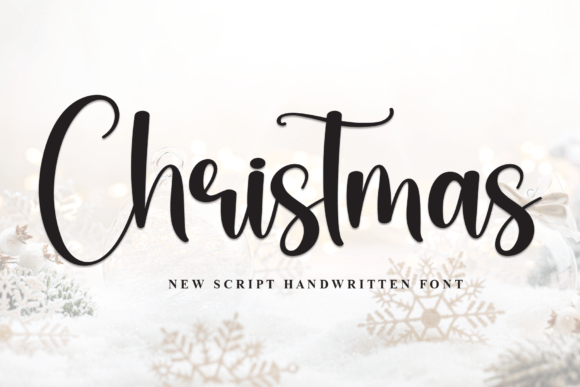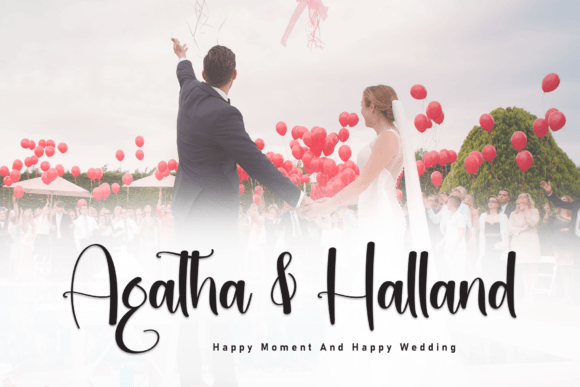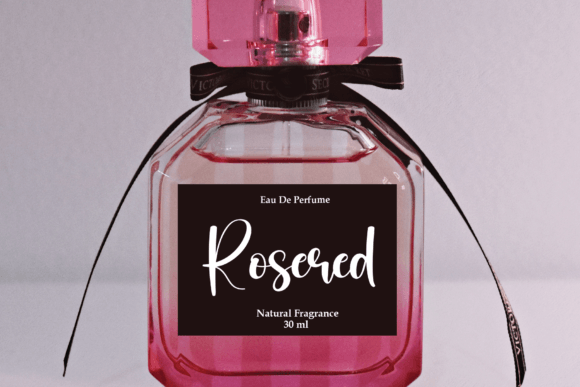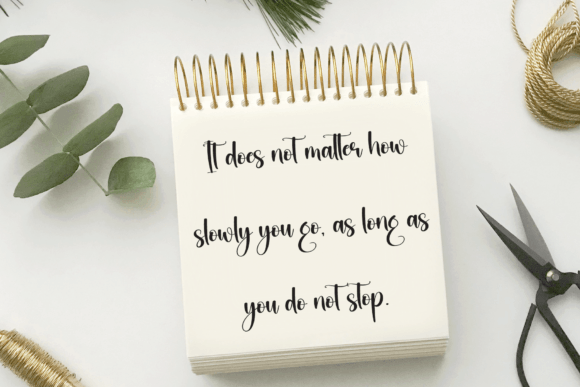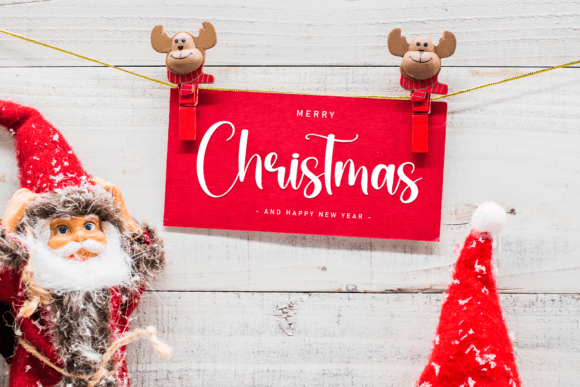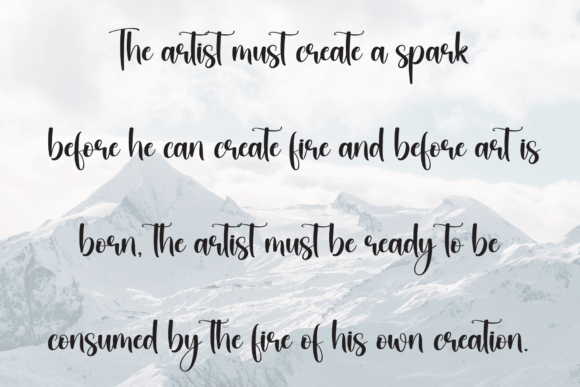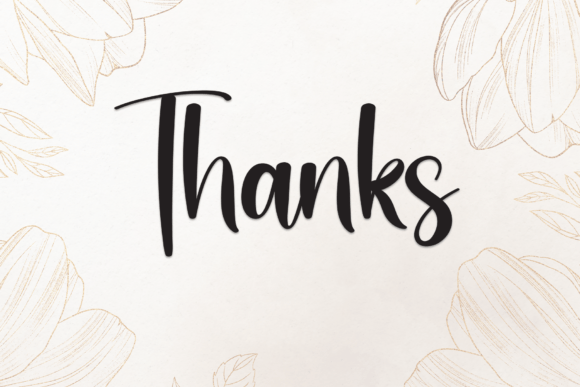
Deck the Halls with the Perfect Font
As the snowflakes start to fall and the holiday season approaches, designers are gearing up to create magical and festive designs that capture the essence of Christmas. It’s a time of year when creativity knows no bounds, and the possibilities are endless. But have you ever stopped to think about the perfect font to bring your designs to life?
Enter Christmas Font, a charming and inviting handwritten font that’s sure to add a touch of holiday cheer to any design. With its natural and unique style, Christmas Font is the perfect choice for designers looking to create warm and welcoming designs that evoke the spirit of the season.
Whether you’re designing holiday cards, gift tags, or social media graphics, Christmas Font is a valuable addition to any designer’s toolkit. Its versatility and charm make it a go-to choice for designers of all levels, and with its endless possibilities, the only limit is your imagination!
Key Features of Christmas Font
- Unique Characteristics: Christmas Font features a festive, cursive design with bold lines and ornaments, perfect for adding a touch of holiday cheer to your designs.
Designer Review: Christmas Font
Overall, the Christmas Font is a decent attempt at capturing the spirit of the holiday season. ✨ One of the things that works well is its playful, cursive script that’s reminiscent of handwritten notes. It’s perfect for adding a touch of whimsy to your designs. ✨ The font also comes with a range of ornaments and decorations that can be used to add some extra flair to your designs.
- ⚠️ The font can feel a bit too over-the-top, especially when used in large quantities. It’s best to use it in moderation to avoid overwhelming your audience.
- ⚠️ Some of the ornaments and decorations can be quite large, which can make them difficult to use in smaller designs.
- ⚠️ The font is not particularly versatile and may not be suitable for designs that require a more formal or minimalist look.
In terms of overall impression, the Christmas Font is a fun and festive addition to any design. However, it may not be the best choice for every project. With some careful planning and restraint, it can be a great way to add some holiday cheer to your designs.
The Christmas font is commonly used for:
- Creating festive holiday cards and invitations.
- Designing holiday-themed social media posts and advertisements.
- Adding a festive touch to wedding invitations and decorations.
Alternatives to Christmas Font for Designers
Copperplate Script
Copperplate Script is a classic calligraphy font, ideal for formal and elegant designs. It features flowing connections and subtle flair, perfect for invitations, wedding stationery, and luxury branding. Unlike Christmas Font, which is more playful and festive, Copperplate Script exudes sophistication and refinement.
Great Vibes is a beautiful, handwritten font with a touch of whimsy. It’s suitable for creative projects, such as greeting cards, social media graphics, and event promotions. While Christmas Font is more traditional and holiday-specific, Great Vibes offers a more casual and modern alternative.